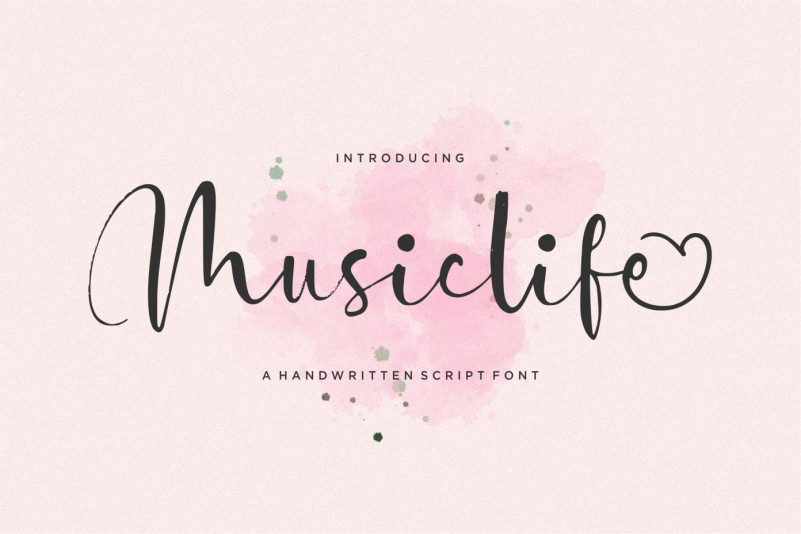
Musiclife Font
Musiclife Script Font, is an elegant handwritten font with a contemporary atmosphere and impeccable form, inspired by a timeless classic calligraphy. Not too thin and not too thick, balanced and varied, this font was designed to enhance the beauty of your projects.